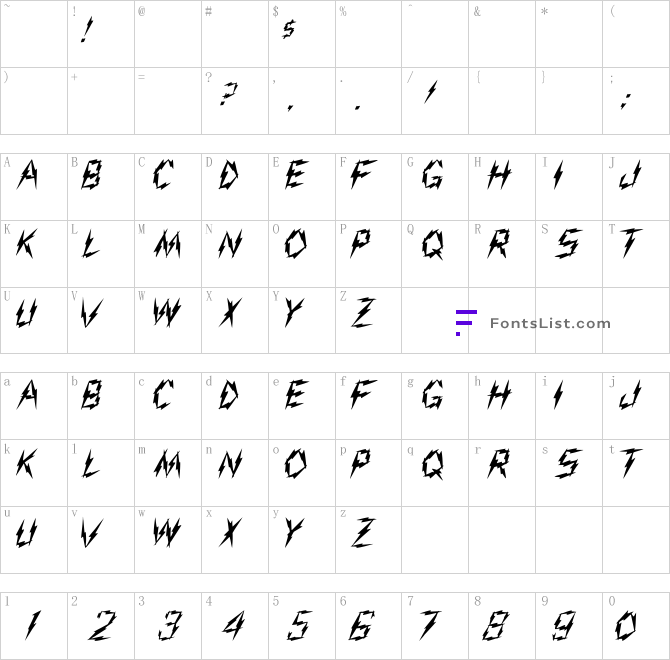
- Font Name:Aarco1
Aarco1.ttf is a very beautiful artistic font, Aarco1.ttf is widely used in the design and printing of various books and pictures,Aarco1.ttf has a strong visual impact,Aarco1.ttf is a commonly used font in newspapers, magazines and books, and is used in posters, e-commerce Poster design, store design, logo design, font design and other fields.Aarco1.